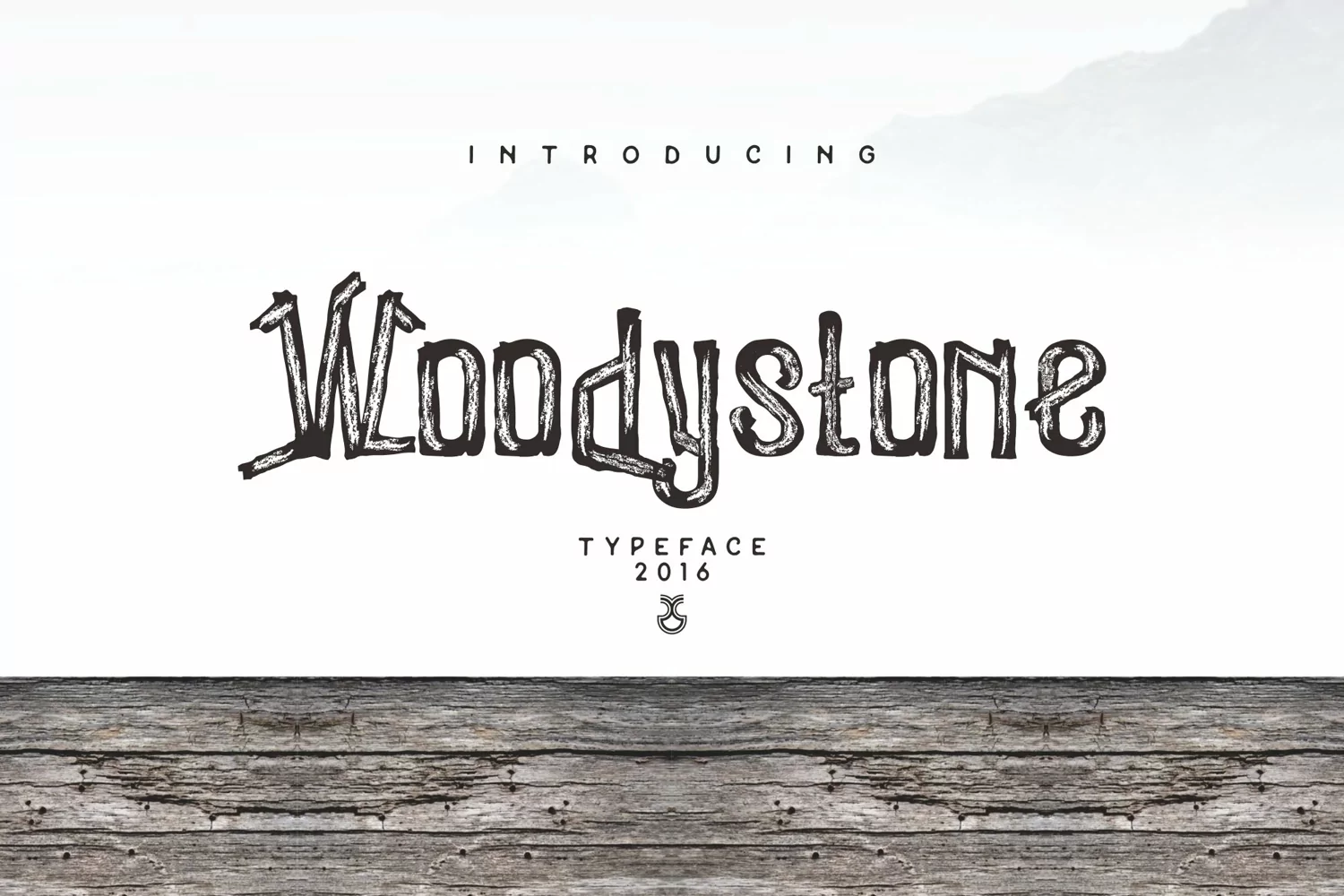
Woodystone Typeface is a vintage display type. It suitable for branding, logos, quotes, blog design, modern advertising design, invitation, Home decor, Book/Cover Title, special events, movie poster, album cover, t-shirts, any handmade vintage type needs and more.